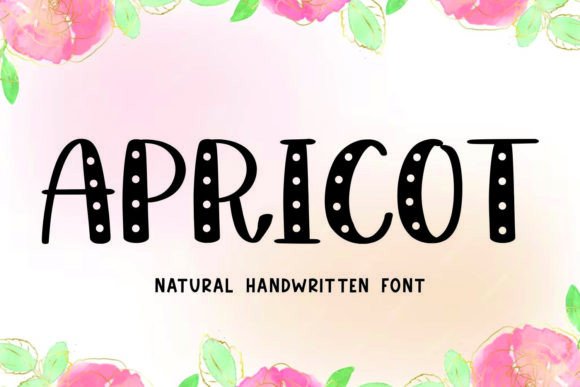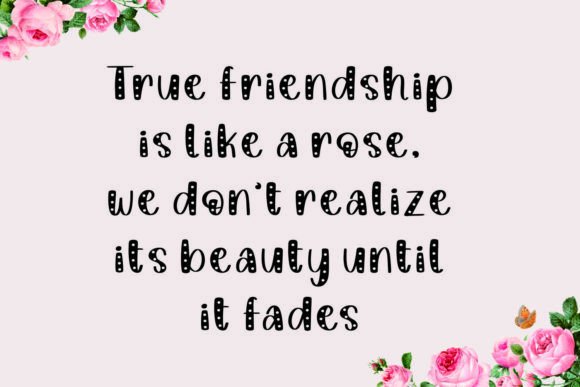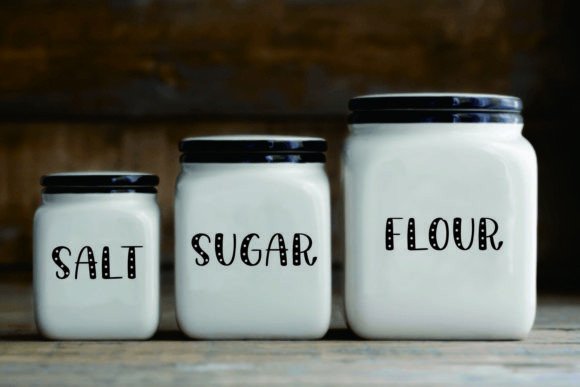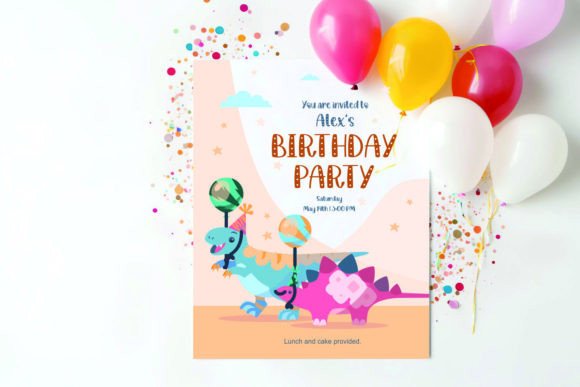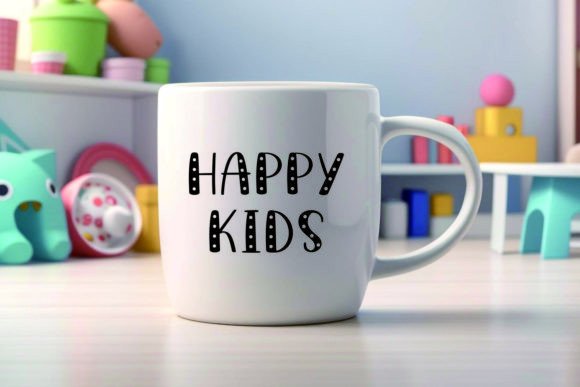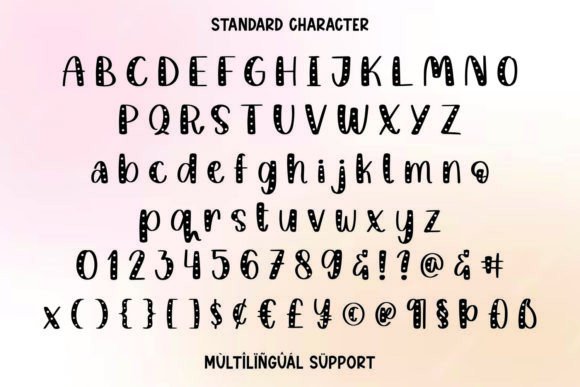
Apricot Font
Introducing Apricot Font, the epitome of charm and sweetness! This delightful display font is meticulously crafted to infuse your designs with an irresistible dose of love and affection. Perfectly suited for themes of love, Valentine’s Day, Mother’s Day, crafting, Women’s Day, Easter, greeting cards, decorations, craft lettering, and embroidery, Apricot Font adds a touch of whimsy and warmth to every project.
With its playful yet elegant strokes, Apricot Font embodies the essence of tenderness and care, making it ideal for expressing heartfelt sentiments and creating unforgettable designs. Whether you’re crafting a heartfelt message for a loved one or adding a touch of joy to your creative projects, Apricot Font is your perfect companion.